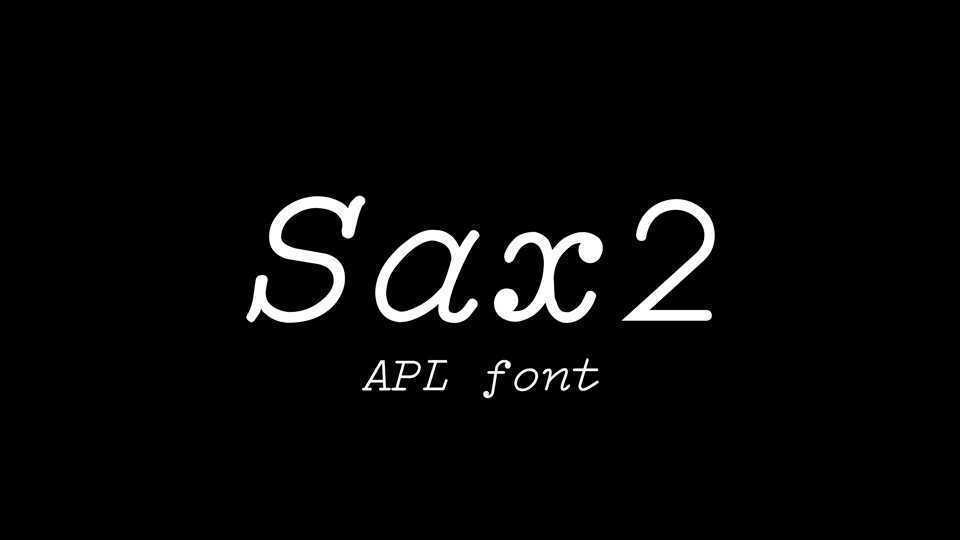
Download Sax2 font, APL typeface based on the font from Sharp APL for Unix, featuring italic slab-serif/curly letters from IBM’s Selectric “Italic 12” font paired with upright digits and vertically centered symbols, thus clearly distinguishing classic confusables.
Designer: Adám Brudzewsky